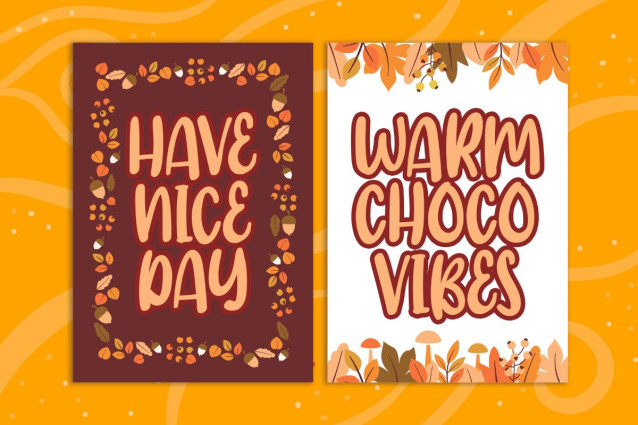
Autumn Crush Font
Autumn Crush Font. This versatile typeface brings warmth and character to your designs, making it ideal for autumn-themed projects, invitations, posters, and more. With its rustic charm and unique letterforms, the Autumn Crush Font captures the essence of fall, adding a touch of seasonal magic to your creative endeavors.